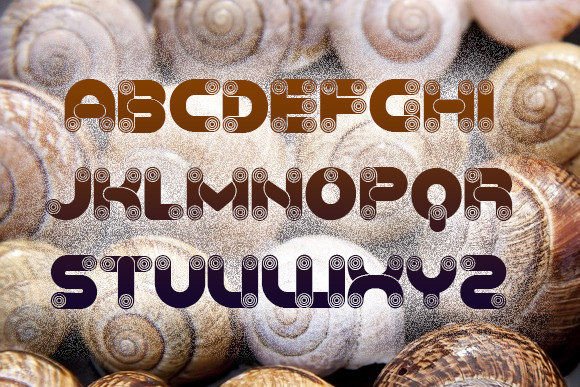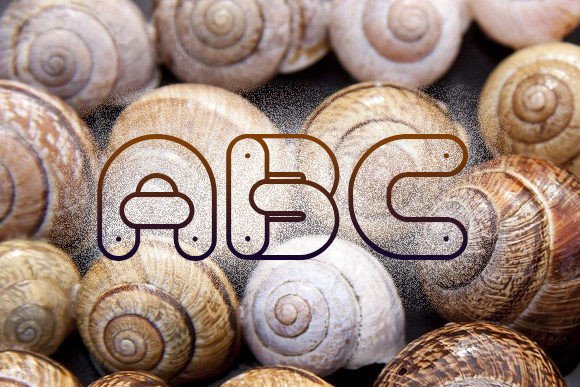
Baked Snails Font: The Perfect Addition to Your Design Collection
Are you tired of using the same old fonts in your designs? Do you want to add a touch of whimsy and personality to your posters, flyers, and other creative projects? Look no further than the Baked Snails Font, a cool and unique decorative font family that’s sure to fit any of your designs.
What is Baked Snails Font?
Baked Snails Font is a one-of-a-kind font family that’s perfect for designers and crafters who want to add a dash of fun and playfulness to their work. With its quirky and charming design, this font is sure to capture the attention of your audience and leave a lasting impression.
Key Features of Baked Snails Font
- Unique Design: Baked Snails Font boasts a distinctive design that’s unlike any other font out there. Its curly and swirly lines make it perfect for adding a touch of whimsy to your designs.
- Decorative Style: This font family has a decorative style that’s perfect for use on posters, flyers, and other creative projects.
- High-Quality: Baked Snails Font is a high-quality font that’s designed to produce crisp and clear results, even at large sizes.
Uses for Baked Snails Font
Baked Snails Font is a versatile font family that can be used on a wide range of design projects, including:
- Posters: Add a touch of whimsy to your posters with this unique font.
- Flyers: Use Baked Snails Font to create eye-catching flyers that grab attention.
- Social Media Graphics: Add some personality to your social media graphics with this fun and playful font.
- Crafting Projects: Baked Snails Font is perfect for use on crafting projects, such as scrapbooking and card making.
Why Choose Baked Snails Font?
With so many fonts to choose from, why should you choose Baked Snails Font? Here are just a few reasons:
- Stand Out: This font is sure to make your designs stand out from the crowd.
- Unique Style: Baked Snails Font has a unique style that’s unlike any other font out there.
- High-Quality: Baked Snails Font is a high-quality font that’s designed to produce crisp and clear results, even at large sizes.
Tips for Using Baked Snails Font
Here are a few tips for getting the most out of Baked Snails Font:
- Use it Sparingly: Because of its bold and playful design, it’s best to use Baked Snails Font sparingly to avoid overwhelming your design.
- Pair it with Other Fonts: Try pairing Baked Snails Font with other fonts to create a unique and eye-catching design.
- Experiment with Colors: Don’t be afraid to experiment with different colors to find the perfect combination for your design.